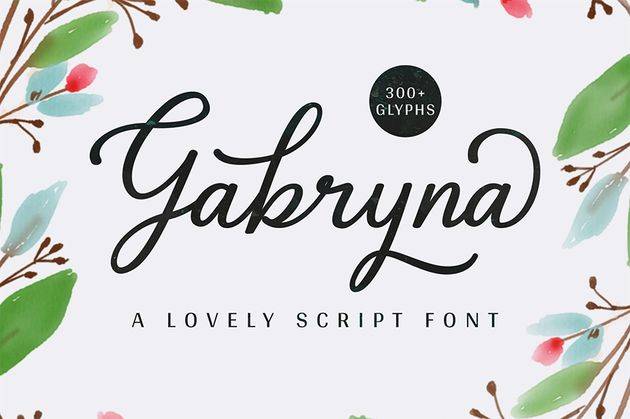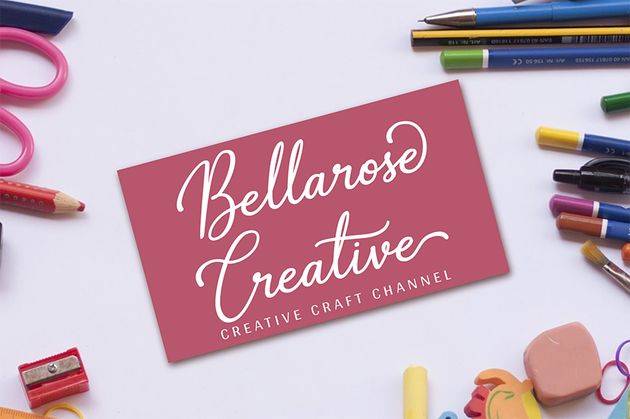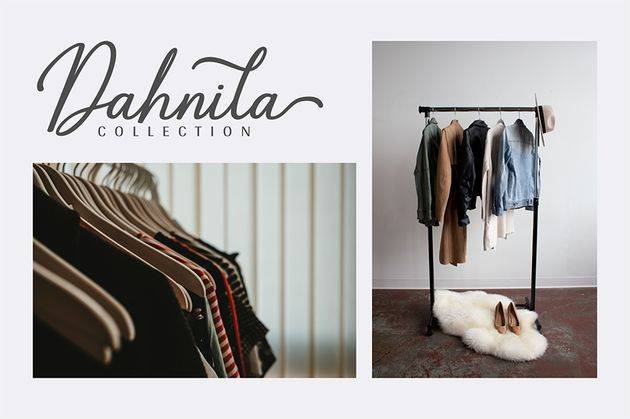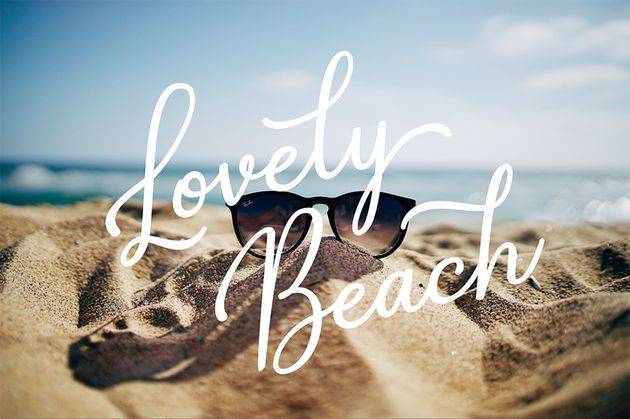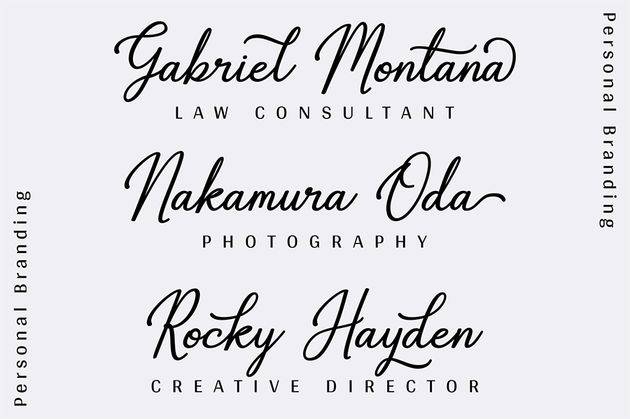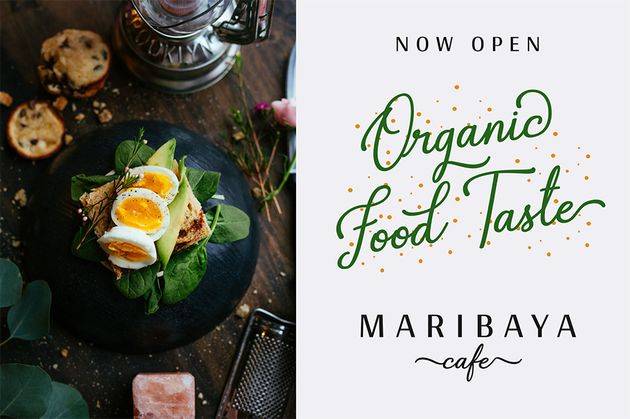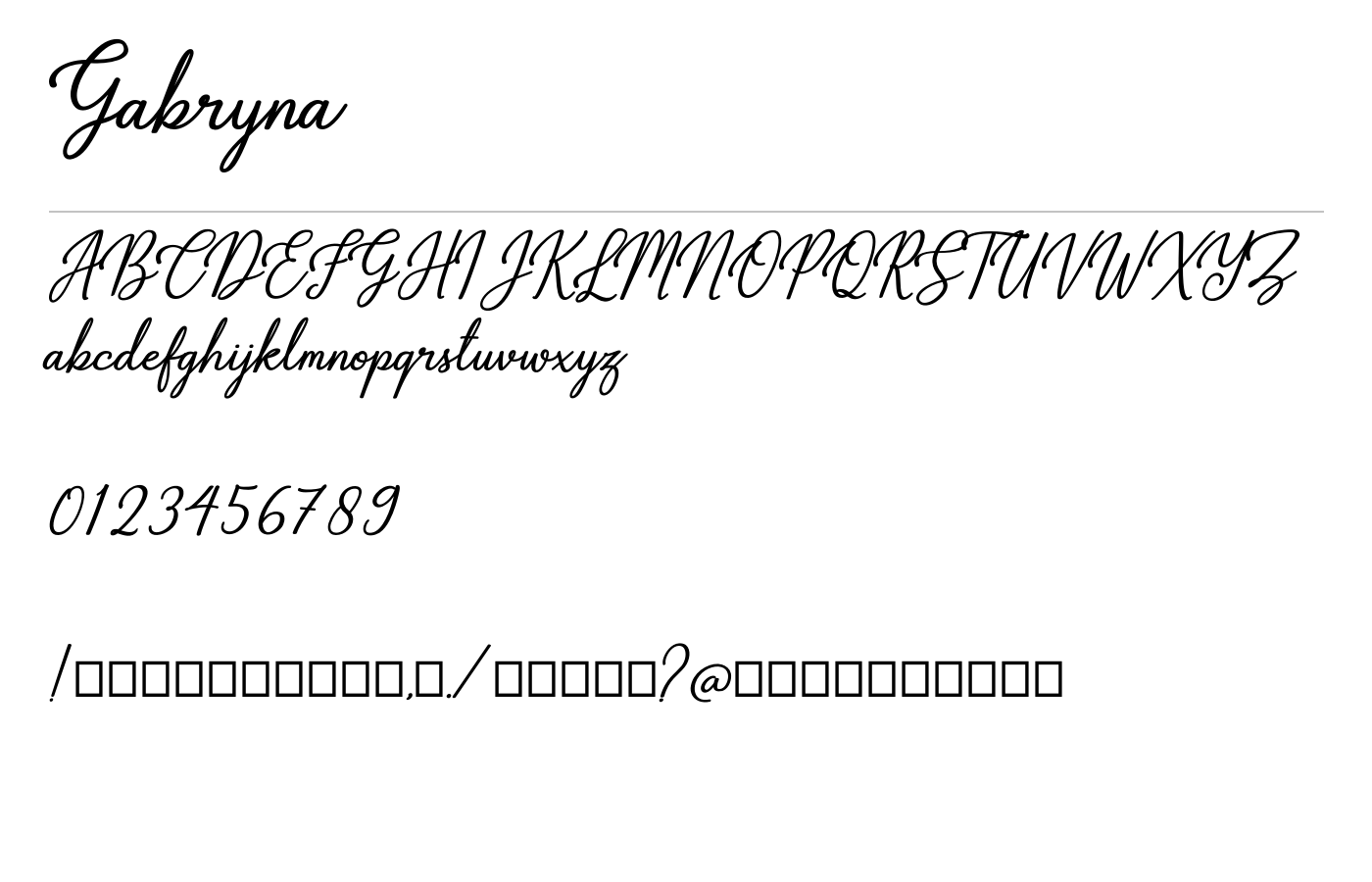
Gabryna Script Demo is an elegant handwritten script font characterized by its flowing, slightly slanted letterforms and moderate contrast in stroke width. Its slender, smooth strokes and distinctive uppercase characters give it a graceful, refined feel, making it ideal for invitations, branding, and feminine design projects that require a personal and stylish touch. This font works best in headlines and decorative text where its readability and charm can truly stand out.
Gabryna Script Demo
About Gabryna Script Demo